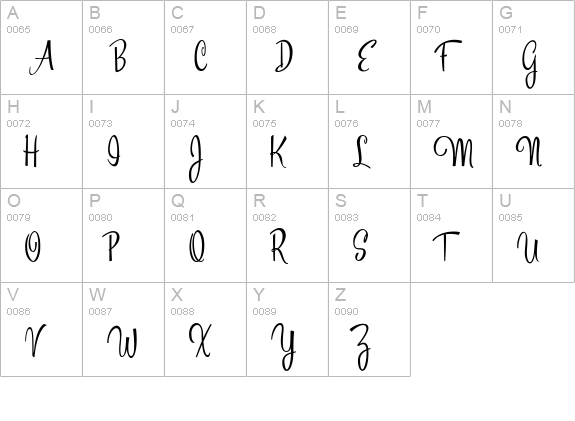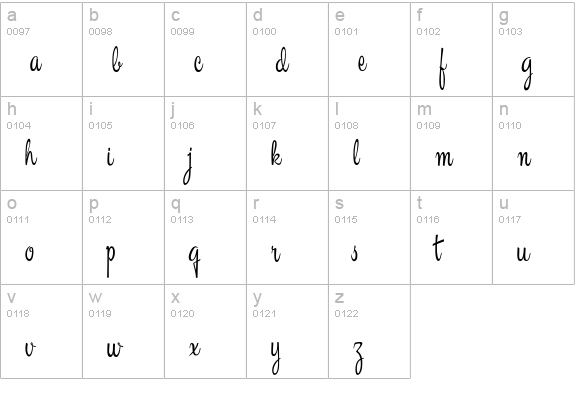
Esplanade Script PERSONAL USE font is a stunning and elegant typeface that will add a touch of sophistication to any design project. With its graceful and flowing letterforms, this font is perfect for creating eye-catching logos, invitations, posters, and more. What sets Esplanade Script apart is that it is not only beautiful, but it is also free for personal use. This means that you can use it in your personal projects without any cost or restrictions. Whether you're designing a wedding invitation or creating a personalized gift, Esplanade Script is the perfect choice. To get your hands on this exquisite font, simply head over to FontsMarket.com, where it is freely available for download. FontsMarket.com is a trusted source for high-quality fonts, and their easy-to-use platform ensures a seamless download experience. Embrace the elegance and beauty of Esplanade Script PERSONAL USE font, and let it elevate your designs to new heights. With its free availability, there's no reason not to give it a try and see the difference it can make in your creative endeavors. Download Esplanade Script today and unlock a world of possibilities for your personal projects.